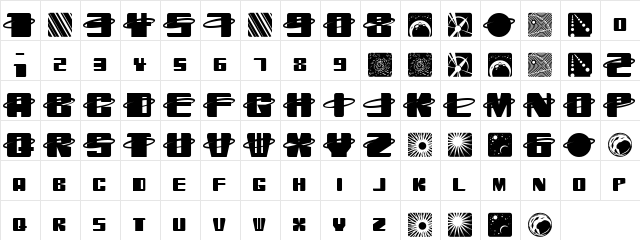
Orbitronio Regular
Design Context for Orbitronio Typeface
Orbitronio is a composed and adaptable typeface that performs quietly and consistently across a wide range of design contexts.